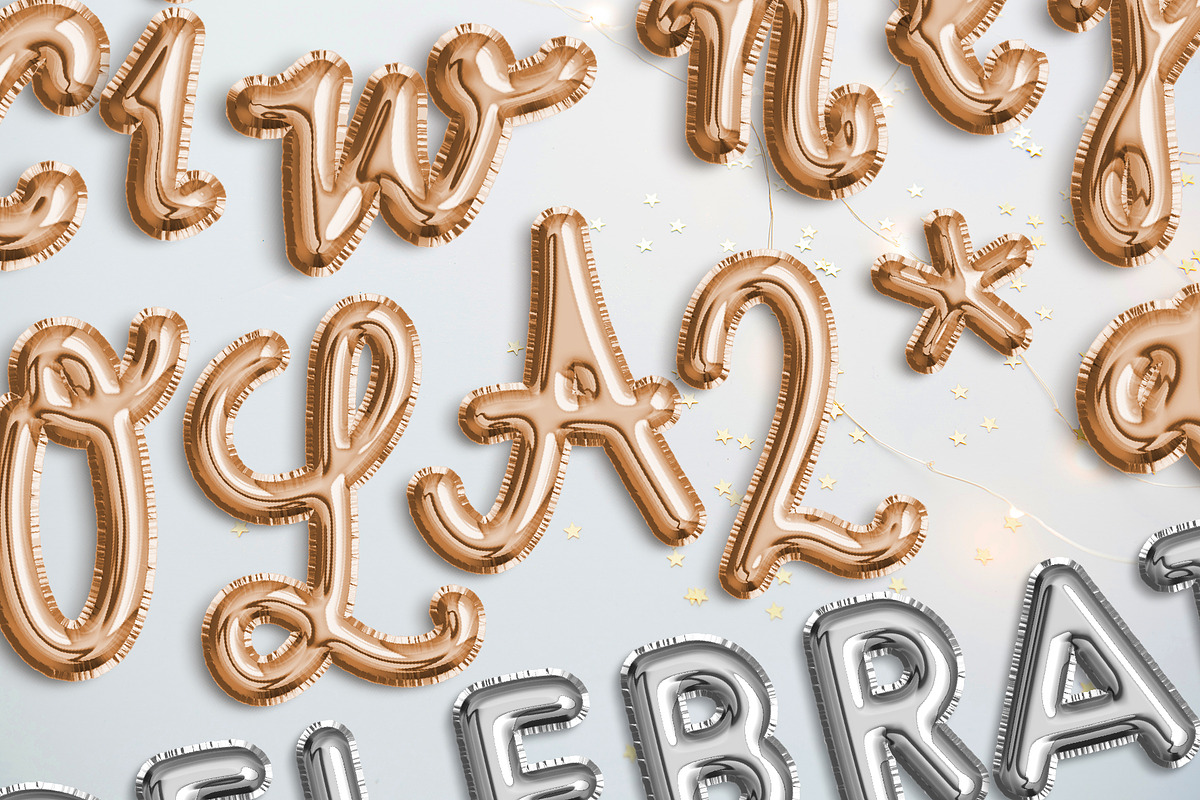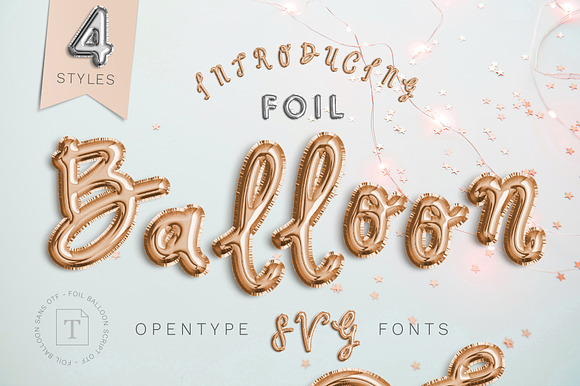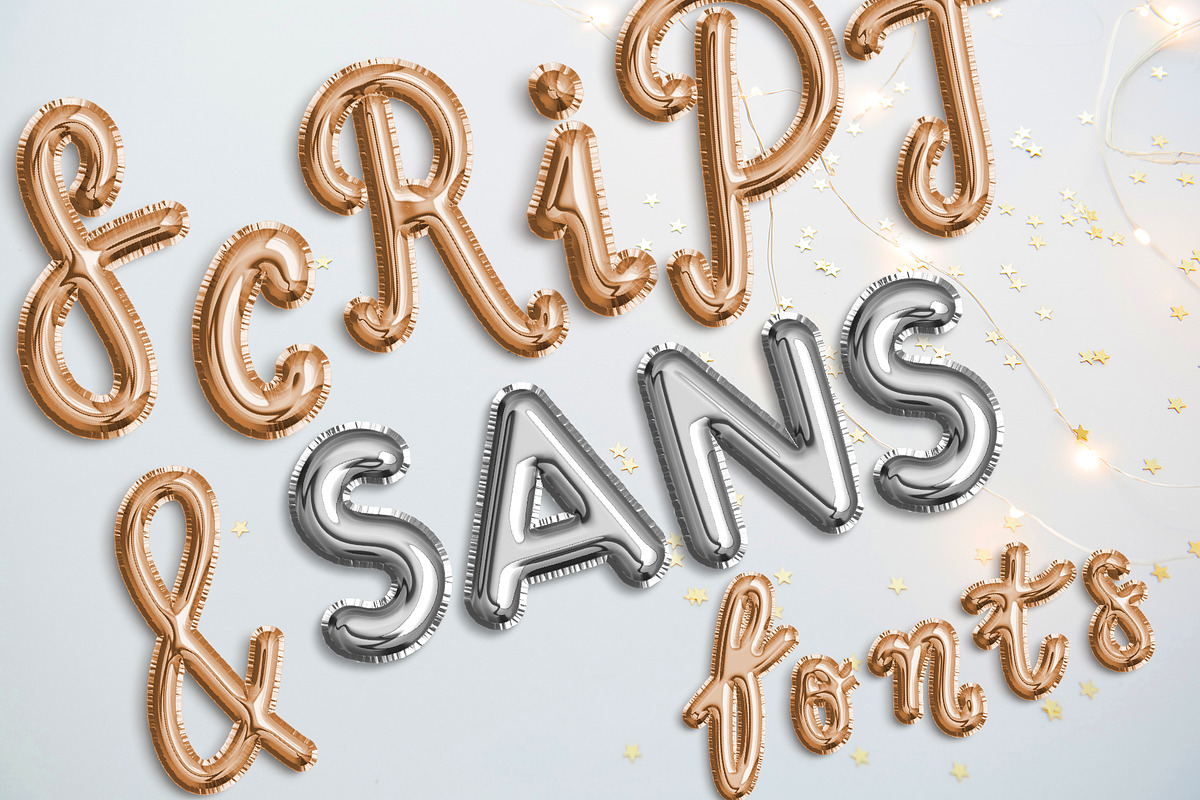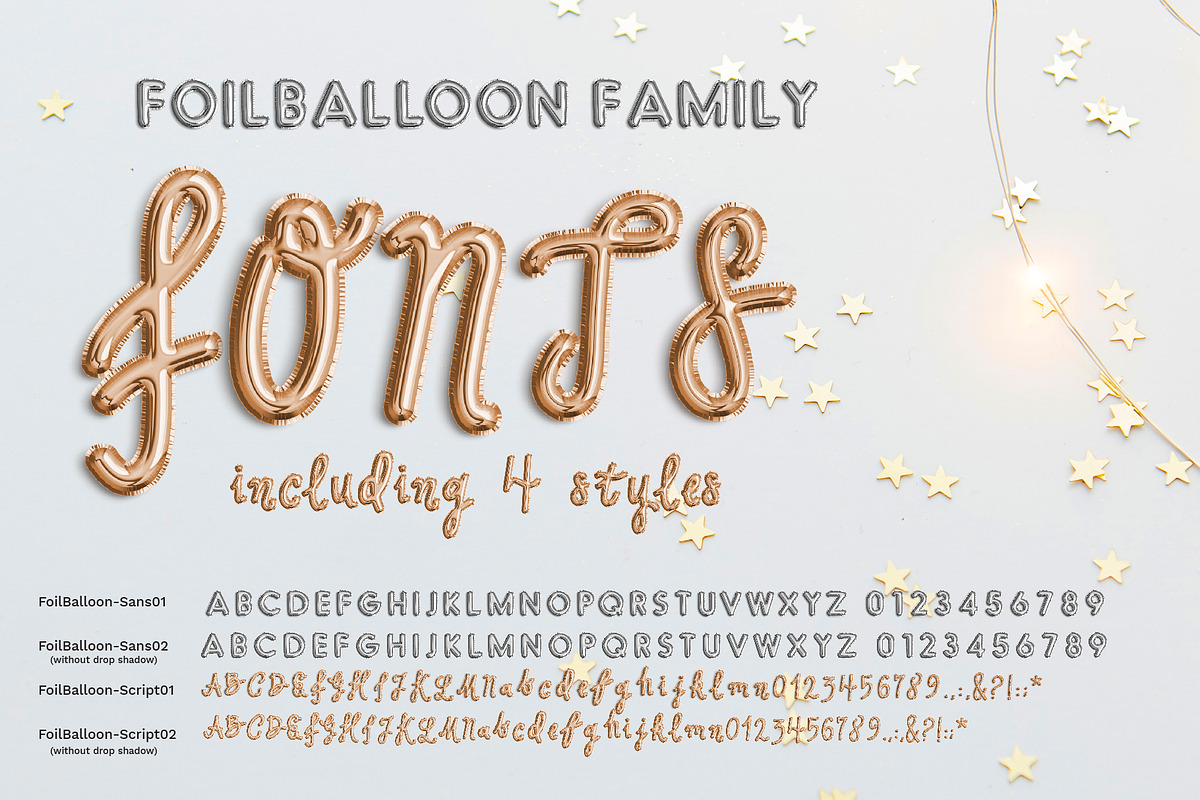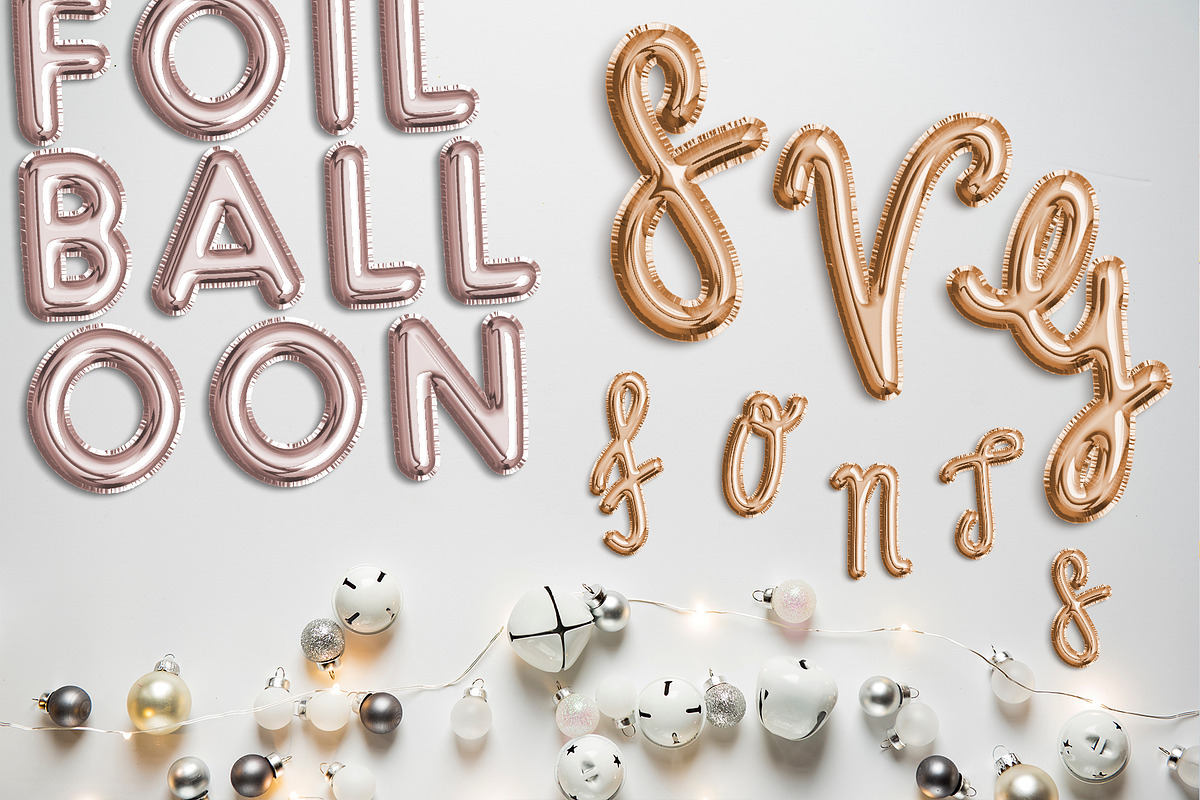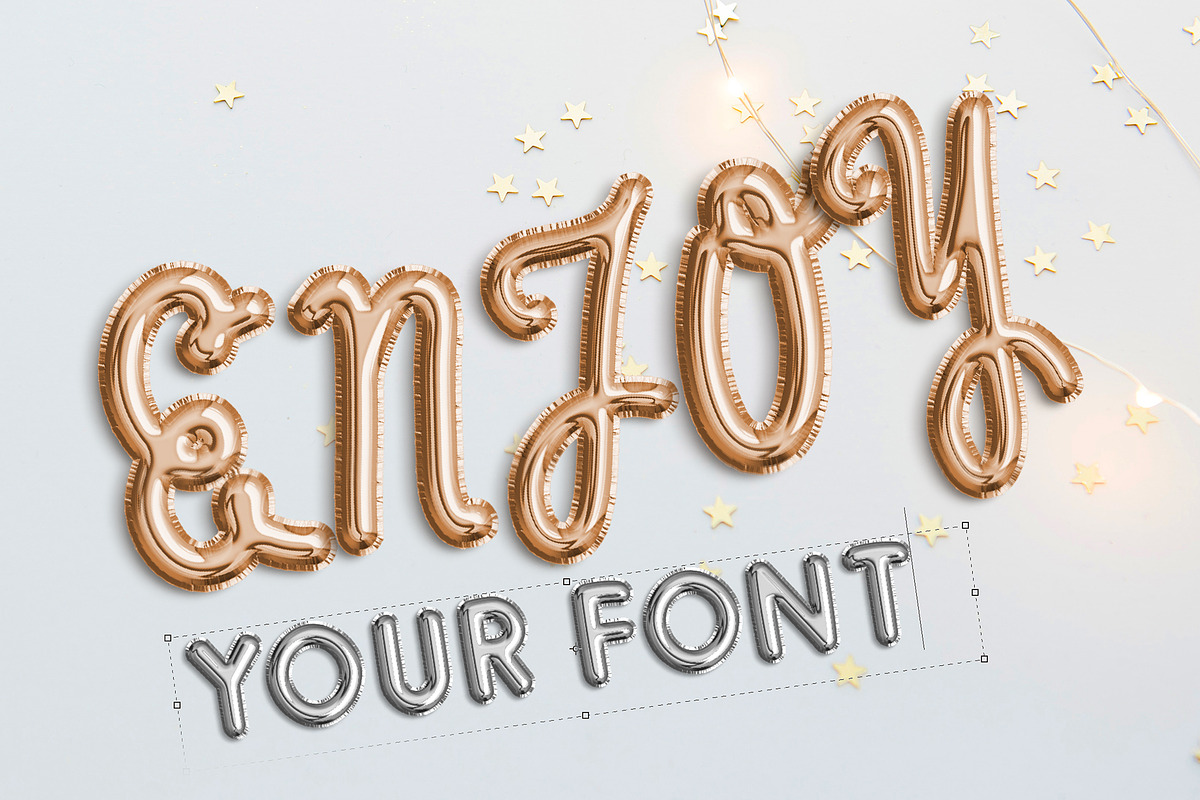
FoilBalloon - Color bitmap font
Making Foil Balloon types never been easy like this! It is OpenType SVG font that you can directly type as Foil Balloon. It is a complete font family with Script and Sans characters. Also with drop shadow version to use on flat background images and without drop shadow version to use like flowing in the air.
Each font is generated in only one color, Script style is rose, Sans style is silver. You can easily convert the text and you can change the color as you wish. These fonts also work like any other font files, just install and use!
- It is a complete font family with Script and Sans characters.